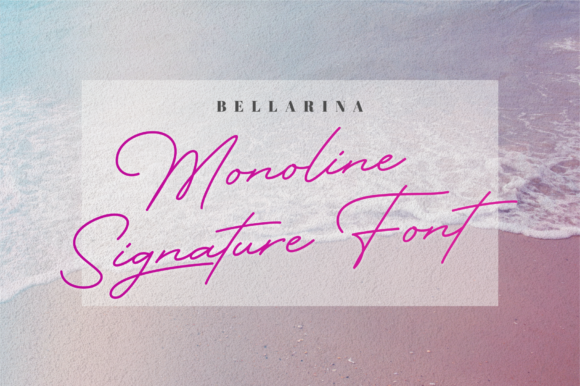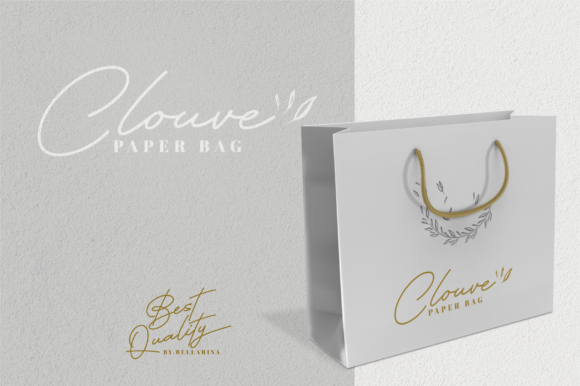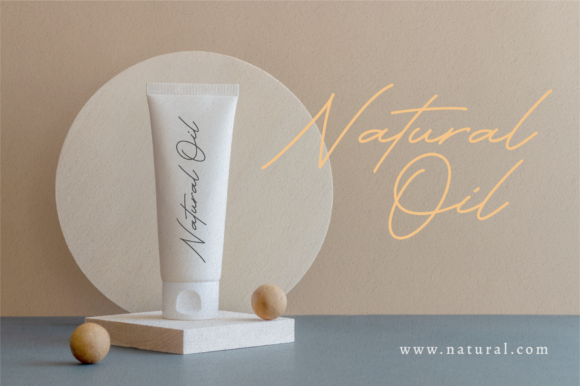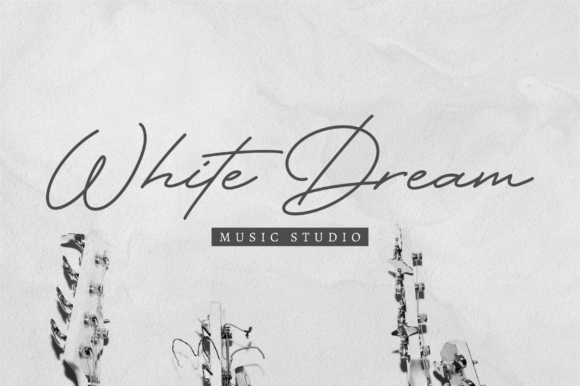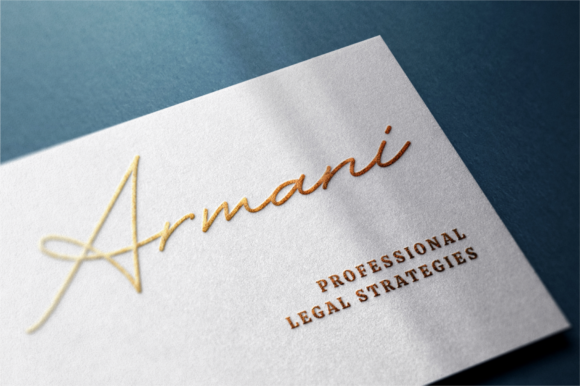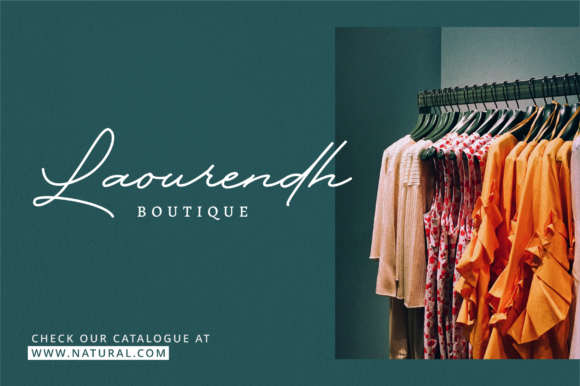
Signature Style: Introducing Bellarina Font
You know that moment when you’re brainstorming ideas for a new project, and suddenly, a spark of creativity hits you? Maybe it’s the perfect color palette, or the perfect font. For designers, that spark is often the starting point for something amazing. And for us, that spark was the Bellarina Font – a beautiful, monoline signature font that’s perfect for elevating your personal or business brand.
Bellarina Font is designed to help you create stunning, elegant signatures for your name cards, business cards, and more. But its versatility doesn’t stop there – it’s also a great choice for branding projects, social media posts, magazines, and even book covers. Whether you’re a seasoned designer or just starting out, Bellarina Font is a valuable addition to your toolkit.
Bellarina Font Key Features
- Font Family: Bellarina, Bellarina Italic, Bellarina Bold, Bellarina Bold Italic, Bellarina Regular Italic
- Unique Characteristics: Elegant, cursive script with a touch of whimsy, ideal for invitations, wedding stationery, and other creative projects
- Language Support: Supports a wide range of languages, including English, Spanish, French, German, Italian, and many more
Bellarina Font Review
I’ve had the chance to play around with the Bellarina font, and here are my honest thoughts.
- Unique Whimsy: Bellarina has a certain je ne sais quoi that sets it apart from other script fonts. It’s perfect for adding a touch of elegance and sophistication to your designs.
- High-Quality Rendering: The font is beautifully rendered, with crisp lines and smooth curves that make it a joy to work with.
- Multiple Styles: Bellarina comes in a range of styles, from casual to formal, making it a versatile choice for a variety of design projects.
- Font Size Limitations: While Bellarina looks great at larger sizes, it can become a bit too playful and lose its elegance when used at smaller sizes.
- Letter Spacing: The font can sometimes feel a bit cramped, especially when using shorter words or phrases. Be mindful of your letter spacing to avoid any readability issues.
Bellarina is a beautiful, high-quality font that’s perfect for adding a touch of elegance and sophistication to your designs. While it has some limitations, it’s a versatile and unique choice that’s sure to impress. With a little bit of care and attention to detail, Bellarina can elevate your designs to the next level.
The Bellarina font is ideal for creative and elegant designs, making it perfect for:
- Brand logos and typography
- Editorial and magazine designs
Remember to experiment with different font sizes, colors, and styles to get the most out of the Bellarina font.
Alternatives to Bellarina Font for Designers
Great Vibes is a modern, elegant script font that is perfect for creating a sophisticated and luxurious feel. It is ideal for use in high-end branding, wedding invitations, and other special occasions. Great Vibes has a similar feel to Bellarina Font, but with a more refined and polished appearance.
Lato is a clean and modern sans-serif font that is perfect for use in a variety of applications, from corporate branding to digital products. It has a similar feel to Bellarina Font, but with a more geometric and modern appearance. Lato is a great choice for designers who want a font that is both stylish and easy to read.
Playfair Display is an elegant and luxurious serif font that is perfect for creating a high-end feel. It is ideal for use in branding, advertising, and other applications where a touch of sophistication is required. Playfair Display has a more formal and traditional feel than Bellarina Font, but can be used to create a similar sense of elegance and refinement.
Carolyna Pro is a modern and stylish script font that is perfect for creating a feminine and elegant feel. It is ideal for use in branding, advertising, and other applications where a touch of sophistication is required. Carolyna Pro has a similar feel to Bellarina Font, but with a more playful and whimsical appearance.
Yes, Bellarina is available in multiple font weights, including Light, Regular, Medium, SemiBold, and Bold. This allows designers to choose the perfect weight to match their design style and emphasize important text.
What is the character set and language support for Bellarina?
Bellarina includes a comprehensive character set that supports over 100 languages, including Latin, Cyrillic, Greek, and many other scripts. It also includes a wide range of punctuation and symbol characters, making it suitable for use in a variety of applications, from web design to print materials.